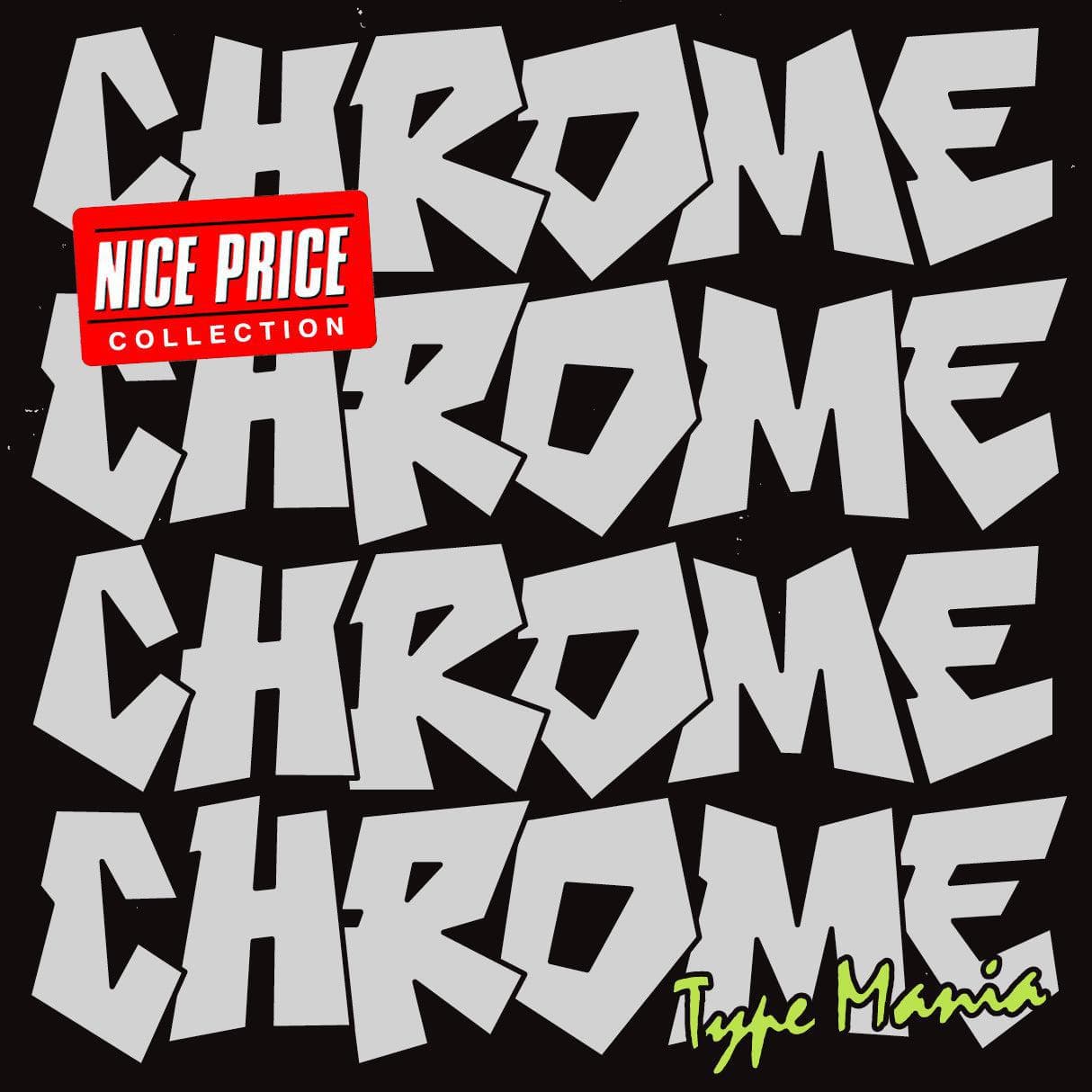
<p>Here it is: <strong>Chrome TM</strong> – a bold, urban typeface inspired by graffiti lettering. Good for branding, posters, album covers, apparel... what have you. Give it a try and see if it works for your project.</p> <p><strong>Zip includes</strong></p> <ul> <li>OTF file</li> <li>TTF file</li> <li>WOFF2 file</li> </ul> <p><strong>Languages</strong></p> <ul> <li>Basic Latin</li> <li>Euro</li> </ul> <p><em>Graphic Design is Easy (with Type Mania)®</em></p>